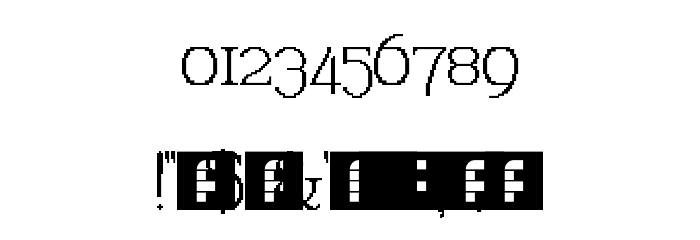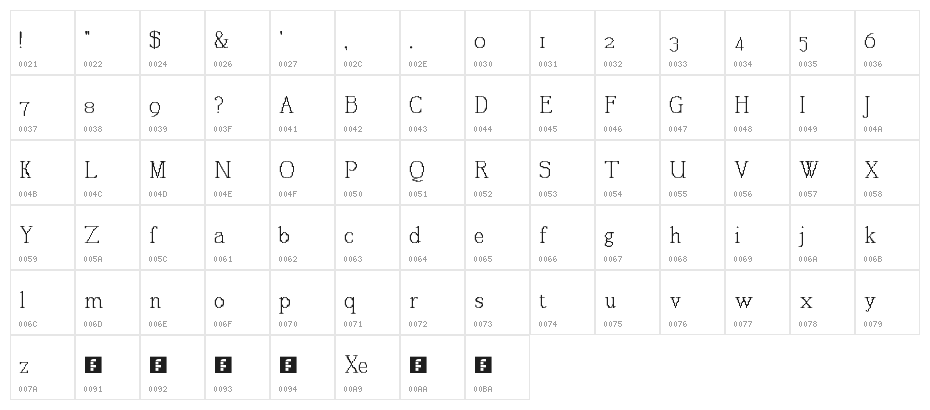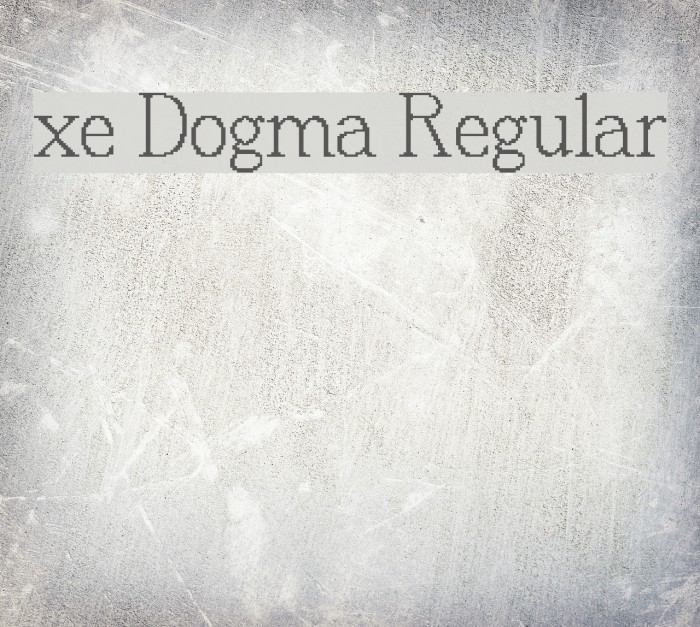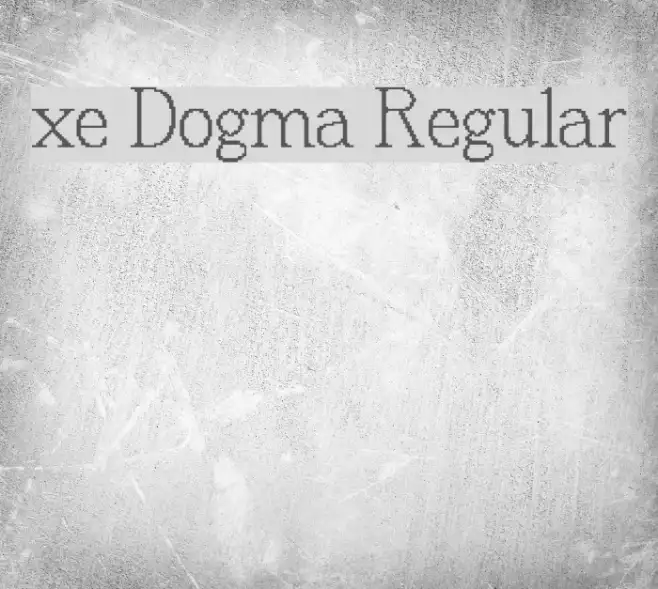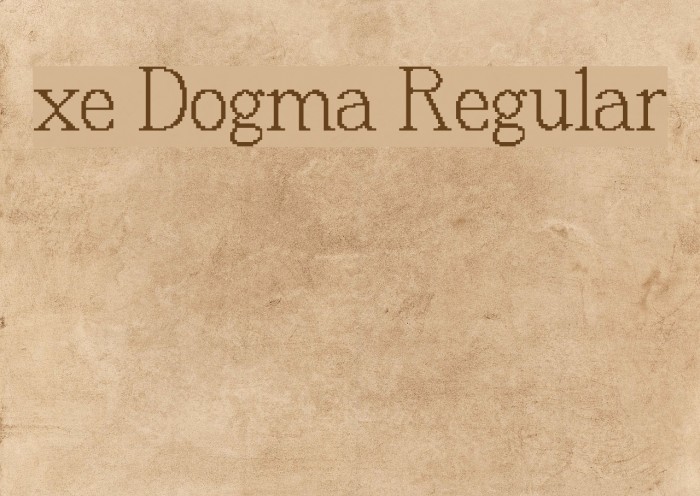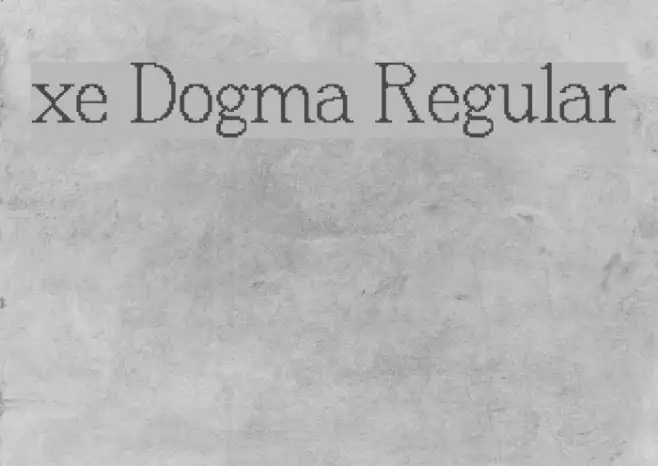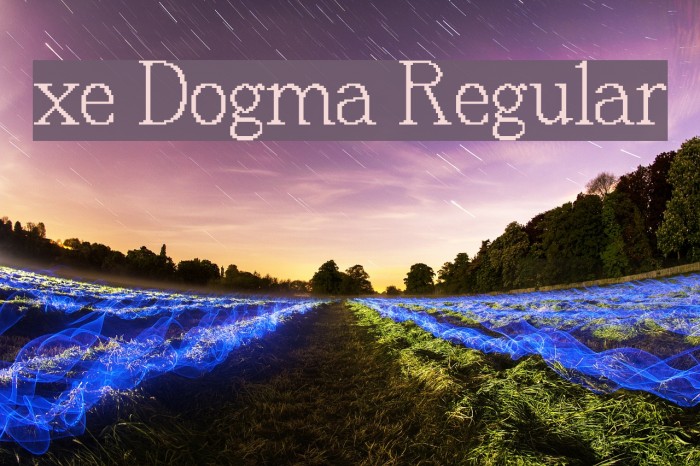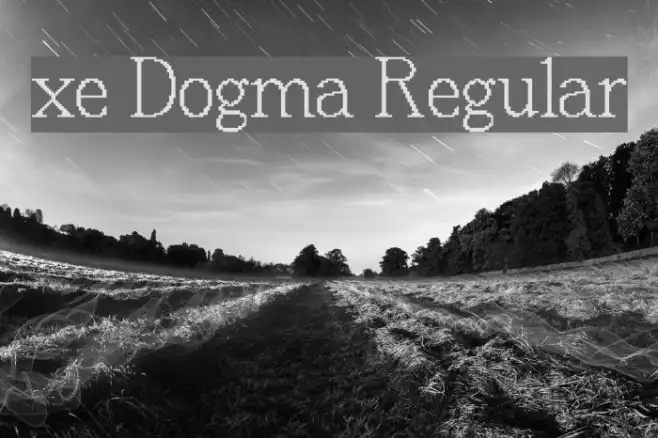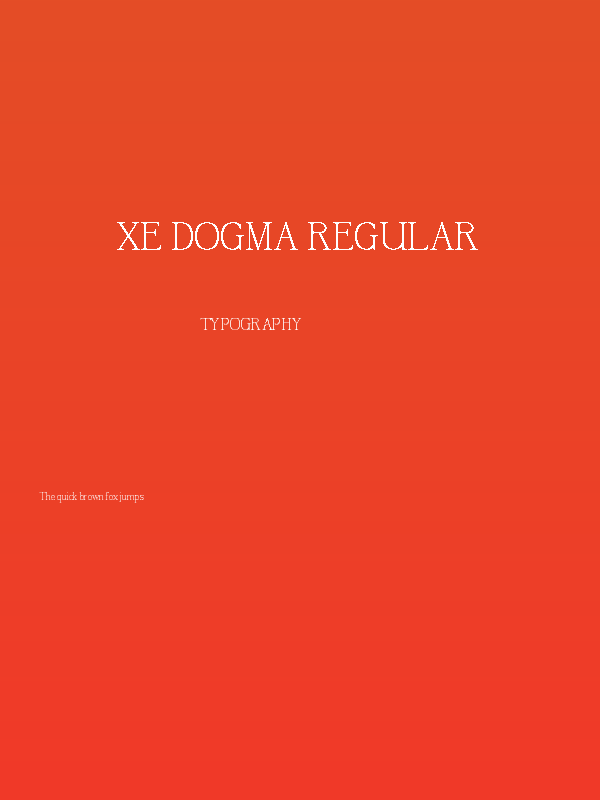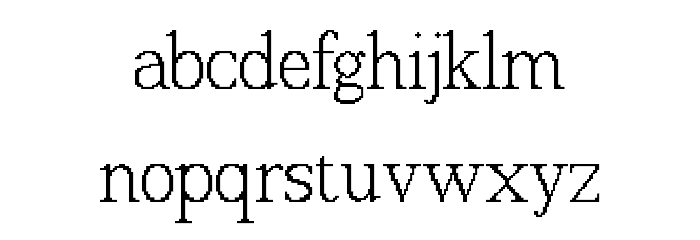
xe Dogma Regular Font
xe Dogma Regular Description
This font features a classic serif style with elegant, thin strokes and a refined appearance. The uppercase letters are tall and distinguished, while the lowercase letters maintain a consistent flow with slightly rounded edges. The numerals are clear and balanced, complementing the overall sophisticated look. Special characters are designed with the same attention to detail, ensuring uniformity across all glyphs. The font's design is suitable for conveying a sense of tradition and reliability, making it ideal for formal documents and branding.
| Proposed Projects | Ideal for formal documents, branding, editorial design, and invitations. |